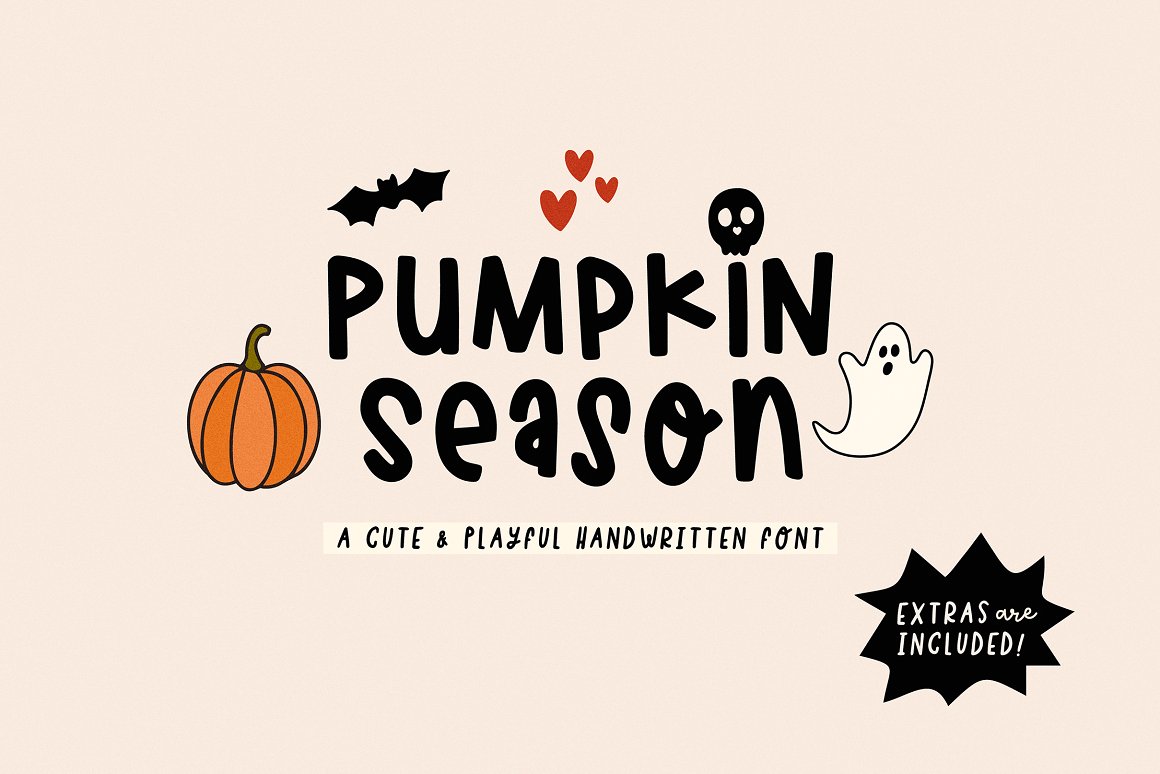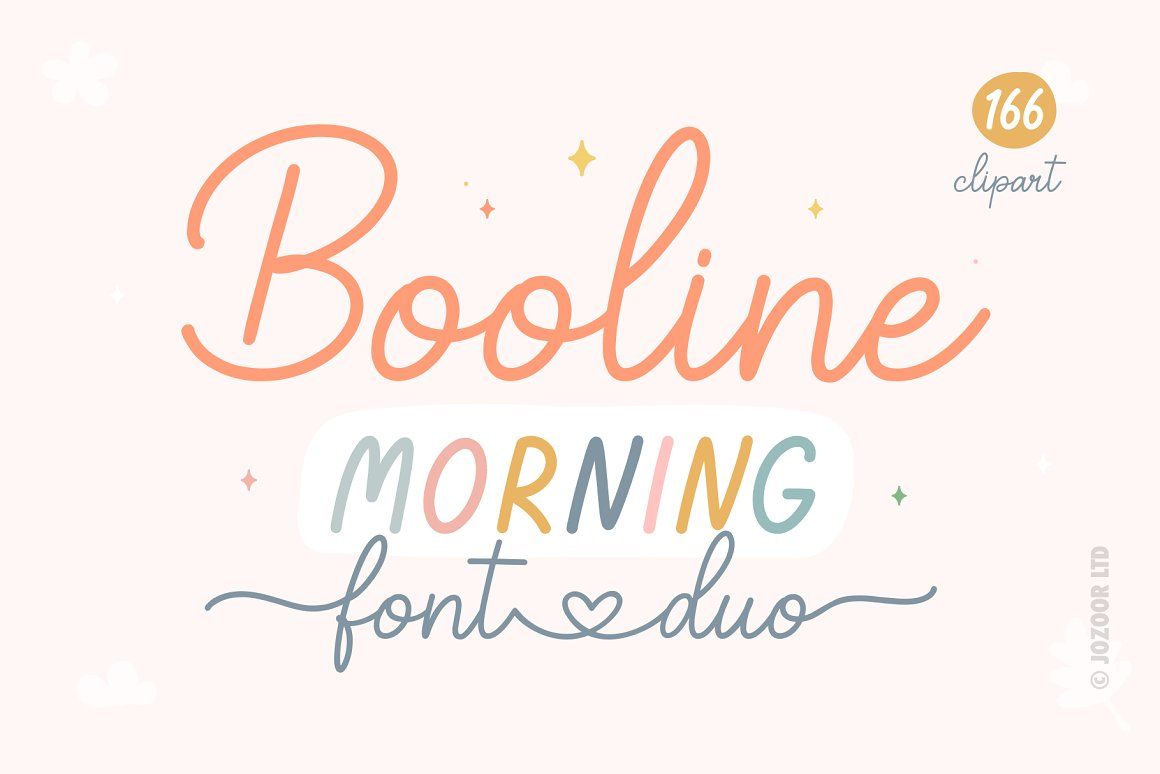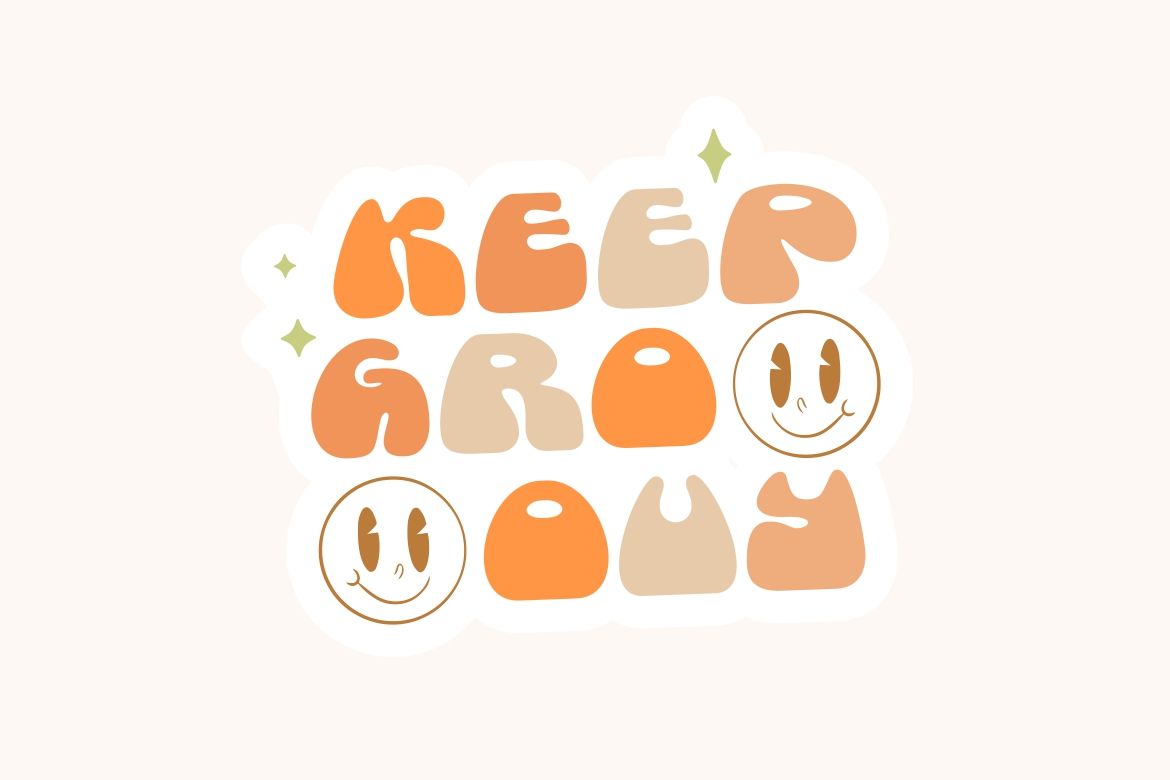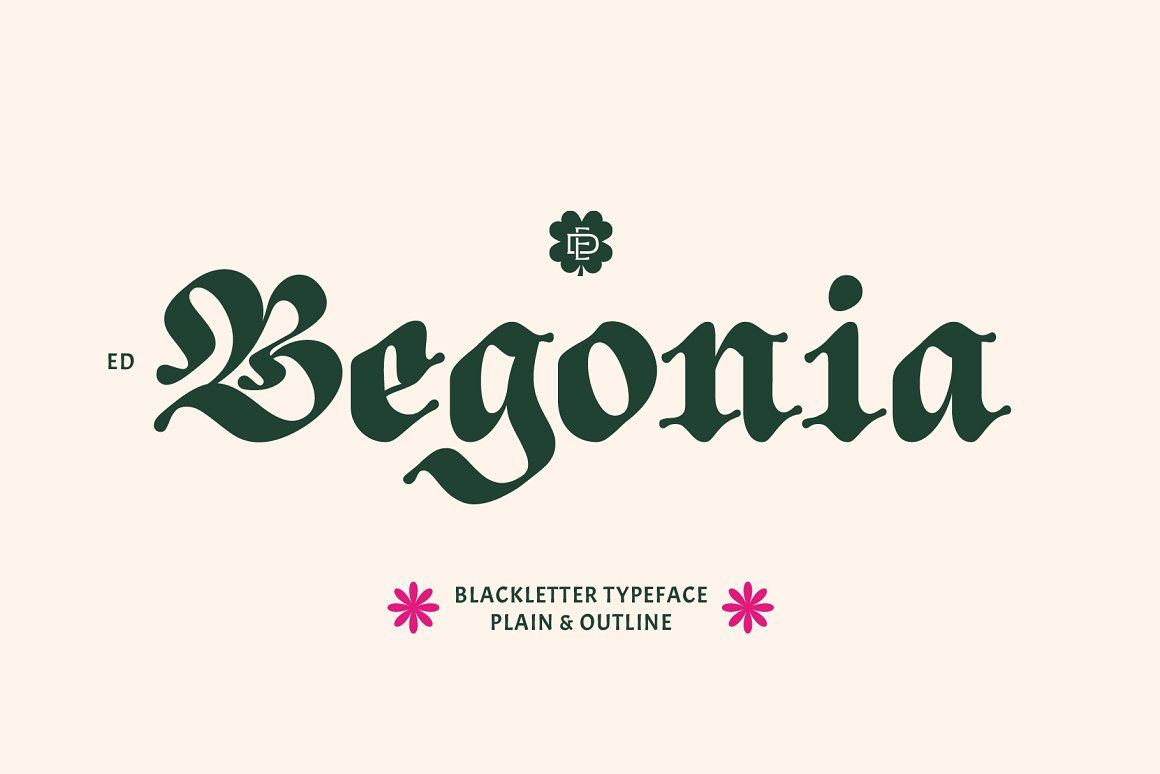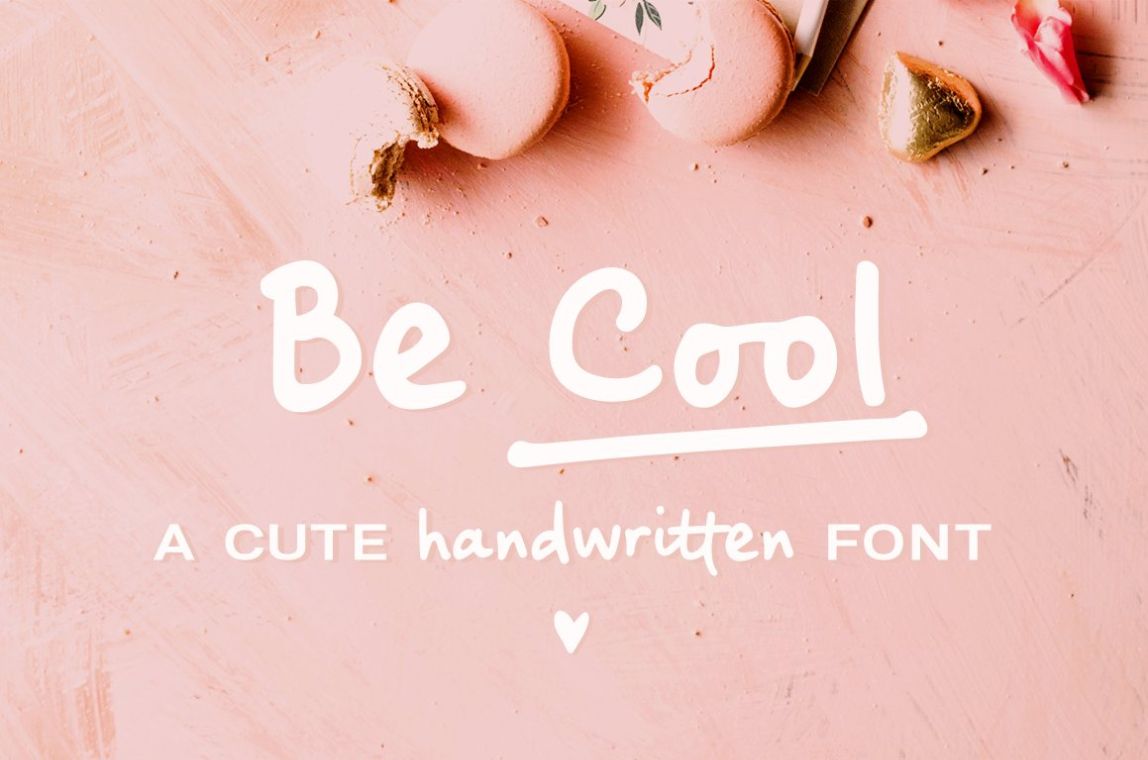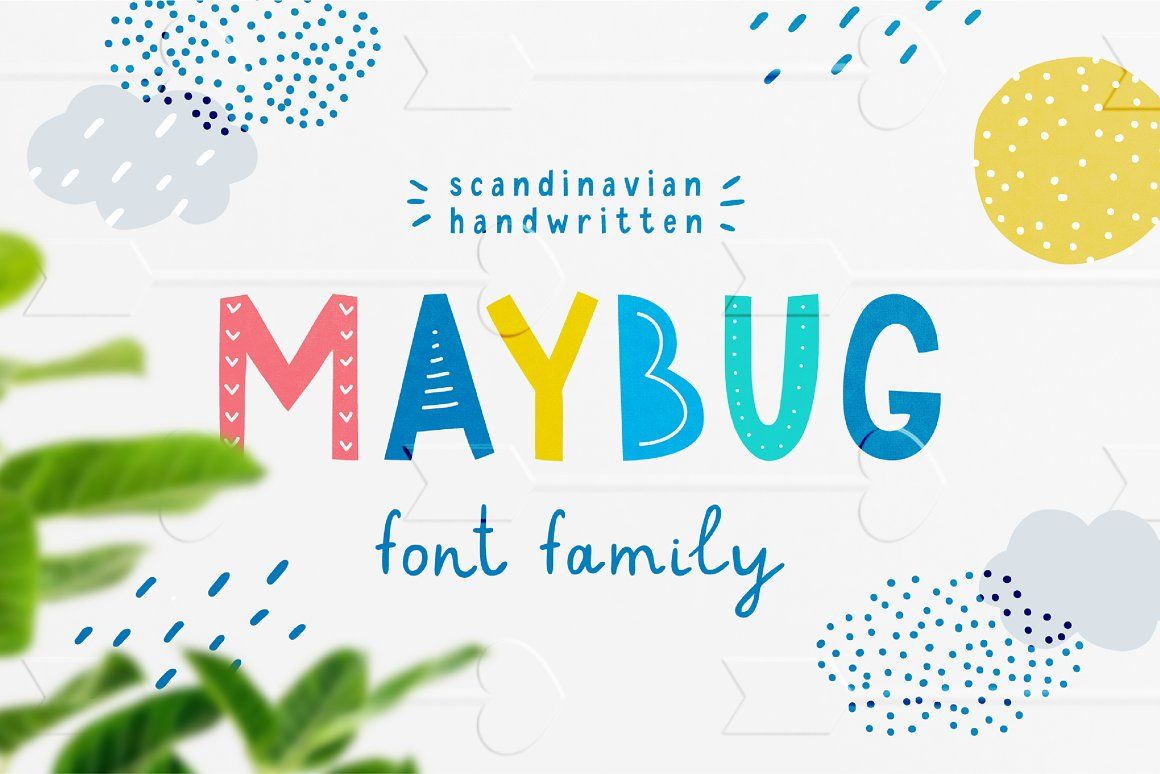
What Makes a Font Cute? 15 Best Cute Fonts for Your Projects
Figuring out which font to use to impress your client or glam up your project has been challenging. There are more than thousands of typographies you can choose out there, making the job harder and perplexing.
While looking for something for your journal or paper, you need something clean and readable; picking out the best font for advertising purposes takes more effort. There are details that matter in an advertisement, such as the right color, the right shades, the readability, and more.
So, if you are working on some branding, slogan, or invitation and wishing for something cute and appealing to represent your projects, here are the 15 best cute font recommendations for you.
What Makes a Font Cute?
Before we jump into the best cute font recommendations you can choose, let’s talk about what makes a font cute. Naming that one font is considered cute is actually quite subjective and varies. However, certain characteristics are commonly related to cute fonts.
• Roundness
Most fonts considered cute usually have round or soft edges. This characteristic shows friendliness and playfulness.
• Childlike Element
Yup, cute fonts used to look fun and whimsical. Typography that has irregular letterforms and animated details is distinguished as cute.
• Proportions
Most fonts that are considered cute typically have a little exaggerated proportion. For example, you will see larger eyes or shorter limbs in the letter ‘y’ or ‘g’.
• Soft Lines
Instead of using bold or rigid strokes, cute fonts will likely feature flowing lines to create a soft and gentle display.
• Playful Details
Playful elements such as stars, crescents, hearts, or other decorative details boost the sense of playfulness.
• Color
While some fonts you are about to install may not offer color choices, colors surely add a state of cuteness. Most cute fonts use pastel tones, and colors collide.
15 Best Cute Fonts Recommendations for Your Projects
Are you ready to dig into our best recommendations for cute fonts? Here are the lists for you:
1. Shine Bubble Font
Our first choice is the Shine Bubble font from HansCo Studio. It looks cute, and Shine Bubble also appears energetic and jolly with its pastel and colorful shades. The modern and bold characteristics spark a retro feel at the same time.
Shine Bubble font has uppercase, lowercase, numbers, punctuation marks, and multi-lingual support. Whether you use it for stickers, invitations, branding, T-shirts, or posters, Shine Bubble surely adds an adorable side to any project.
2. Booline Morning
Remember one of the characteristics of cute fonts that display playful details? You will see it in the Booline Morning font. Designed by Jozoor, Booline Morning is a cute and charming monoline script font that is perfect for almost any kind of project.
Booline Morning is great for packaging designs, websites, book covers, posters, invitations, social media, magazines, and even personal projects like journals or diaries. Booline Morning offers three font features: beginning swashes (tails), ending swashes, and connecting hearts.
3. Aloha Beach
Looking for something fun, energetic, and nostalgic? This modern, bold, clean, and rough slab retro font style is worth a try. Aloha Beach will remind you of posters or apparel from the eighties.
Aloha Beach from HansCo Studio presents playful ends on their letters. The bold and consistent strokes add a special present and retro touch to your designs. These typefaces look great for branding, books, magazines, posters, websites, and more.
4. Pumpkin Season
The next cute font recommendation is this flirty and perky handwritten font called Pumpkin Season. This font, which you can get in Creative Market, offers slender and chunky side characters, adding a unique feel to your designs.
Packed with uppercase, lowercase, and a bundle of punctuation marks and symbols, Pumpkin Season is the perfect pick for your posters, advertisements, book covers, websites, and a ton more!
5. Demetri
Next is the typefaces designed by Becky Simpson. If you’re looking for a playful font that will add a touch of whimsy to your project, then Demetri is your answer. This cute and animated typography features unique shapes in some of its letters.
Some letters like ‘c’, ‘f’, ‘p’, ‘t’, and ‘y’ are made with two lines, while others are one line. You will also see letters like ‘m’ and ‘v’ have connecting lines, looking like reverse crowns and cones.
6. Magic Wish
Created by the Creative Box, Magic Wish certainly adds a little magic to your sketch. This font is a cute yet elegant font with a calligraphy style. Magic Wish is the perfect choice if you are looking for cute, playful, and a little touch of graceful forms.